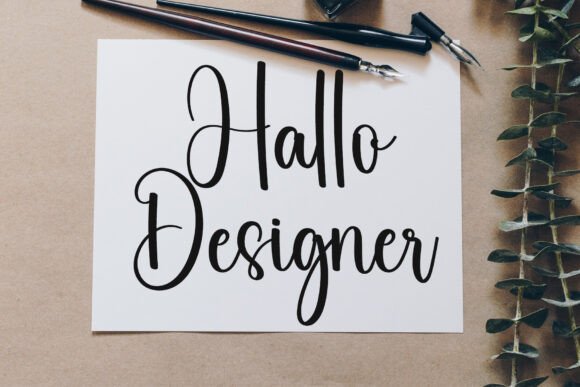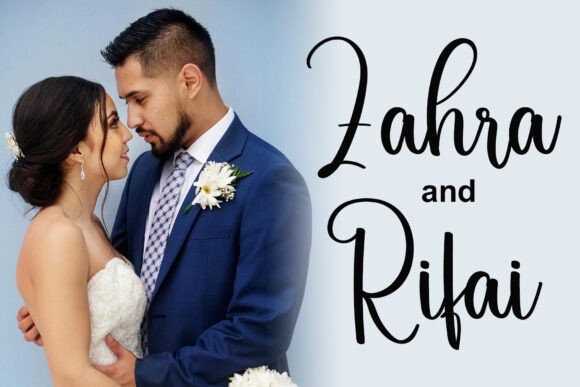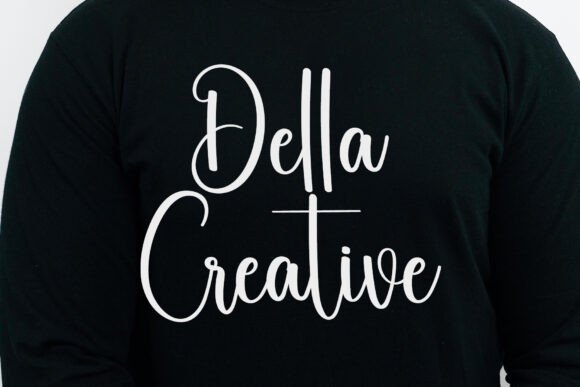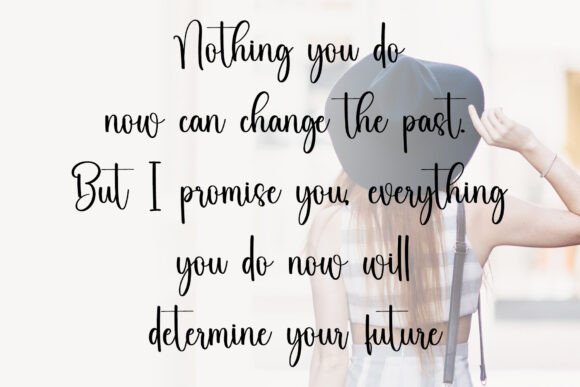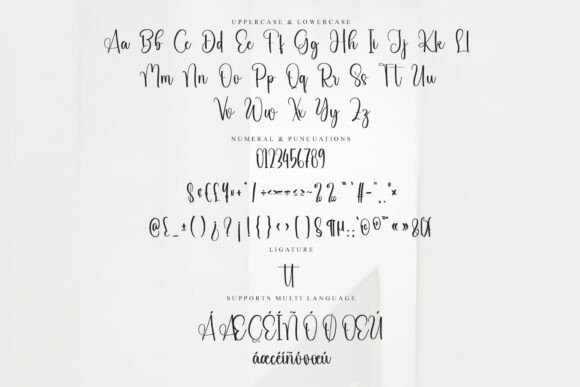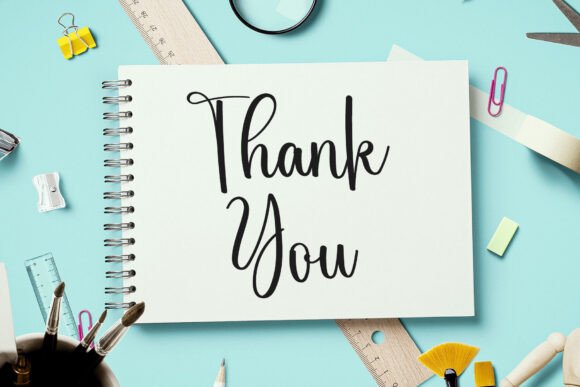
The Perfect Font to Elevate Your Creative Vision
Have you ever been in the middle of brainstorming a new project, and suddenly, the perfect font pops into your mind, elevating your entire concept? It’s a feeling we’ve all experienced, and it’s what makes design so magical. Whether you’re planning a stunning social media post or crafting a beautiful invitation, the right font can make all the difference.
Enter Chasing February Font, a beautiful handwritten font designed to add a touch of elegance to your designs. This enchanting font is perfect for adding a personal touch to your Instagram posts, calligraphy scripts for DIY projects, or any other creative endeavor that requires a dash of sophistication. As a designer, you know how valuable a well-chosen font can be in elevating your work and making it truly unforgettable.
Chasing February Font Key Features
- Font Size: The font comes in 6 different font sizes, ranging from 1 to 6, each with its unique design and style.
- Resolution: The font is designed to work well at resolutions up to 1200 dpi, making it suitable for various printing and digital applications.
- Unique Characteristics: Chasing February Font features a unique blend of modern and vintage elements, with intricate details and ornaments that add a touch of elegance to any design.
- Font Weight: The font includes 6 different font weights, from Light to Heavy, allowing for a wide range of design possibilities.
Chasing February Font Review
Overall, I’m impressed with the Chasing February font, but it’s not without its quirks. ✨ Here are some things that work well:
- Unique and elegant design: Chasing February has a distinct, hand-crafted feel that’s perfect for creative projects.
- Good legibility: The font is clear and easy to read, even at smaller sizes.
- Versatile: It can be used for a wide range of projects, from posters to invitations.
- Limited character set: Chasing February only includes uppercase and lowercase letters, with no additional characters like punctuation or numbers.
- Not suitable for body text: Due to its decorative nature, Chasing February is best used for headings or titles rather than large blocks of text.
- May not display well in all formats: Depending on the context, Chasing February may not render properly in certain fonts or sizes.
Overall, I think Chasing February is a beautiful and unique font that’s perfect for special projects. While it may have some limitations, it’s definitely worth considering for designers looking for something a little different.
Getting the Most Out of Chasing February Font
To get the most out of Chasing February Font, use it for:
1. Titles and headings.
2. Branding and logos.
3. Creative and artistic projects.
Remember to pair Chasing February Font with other fonts that complement its unique style.
Chasing February Font is commonly used for:
2. Branding and marketing materials.
3. Artistic and creative projects.
Experiment with different font sizes, colors, and styles to